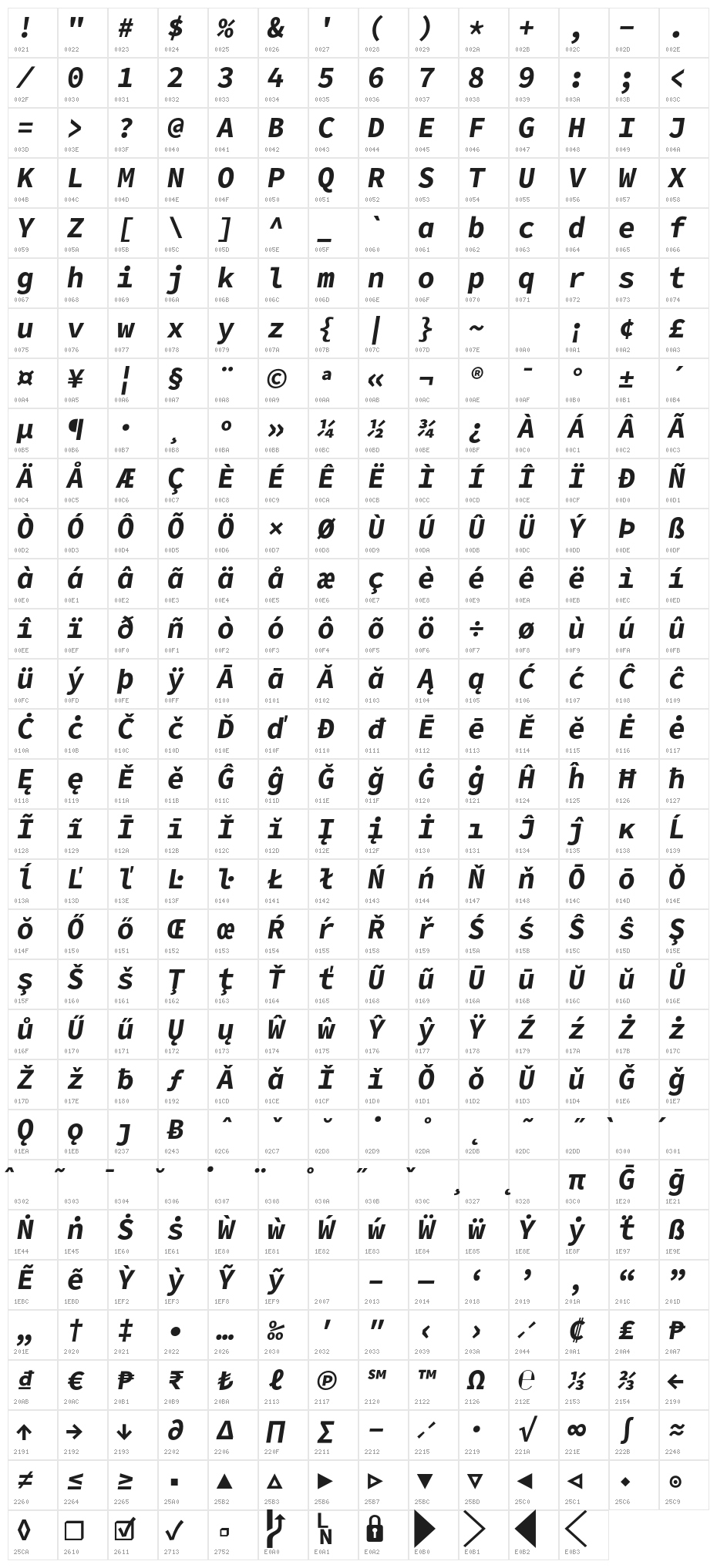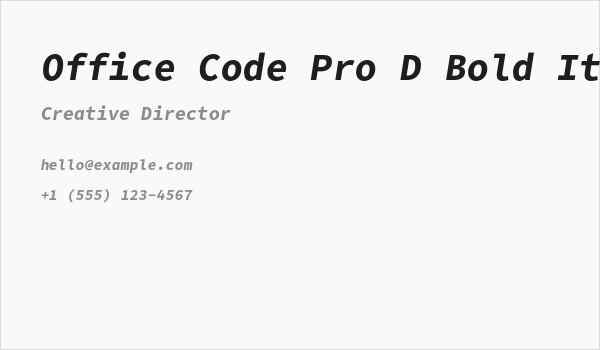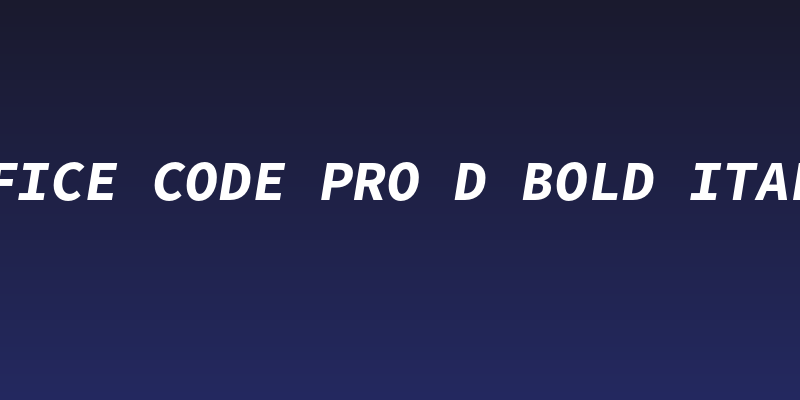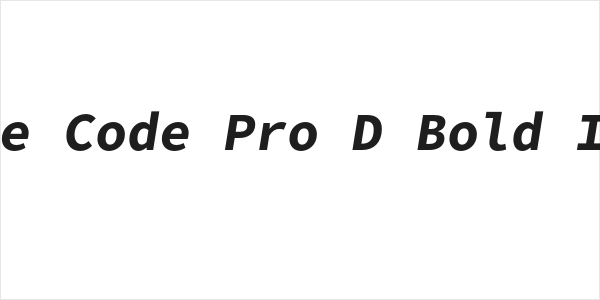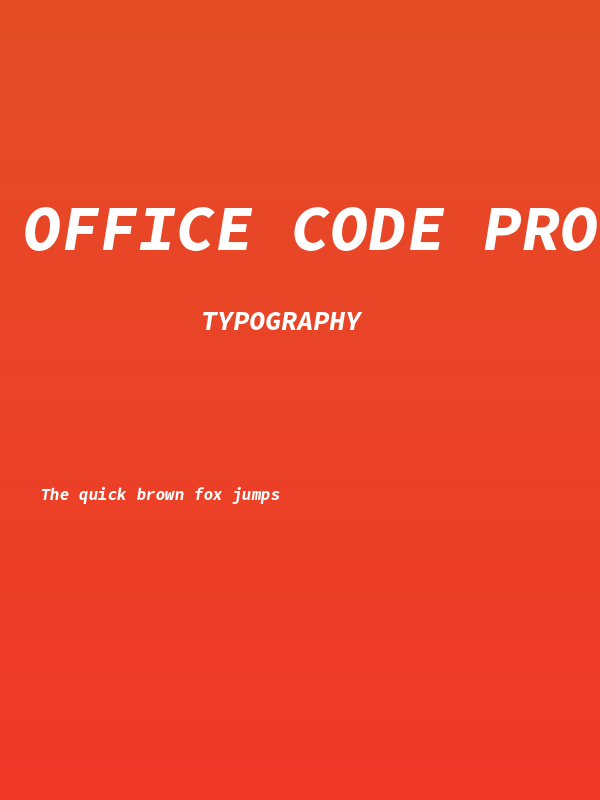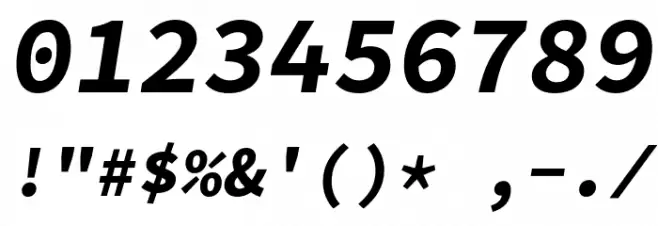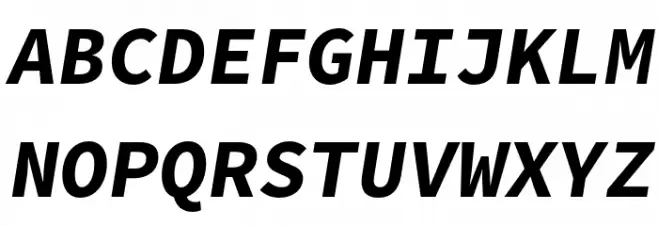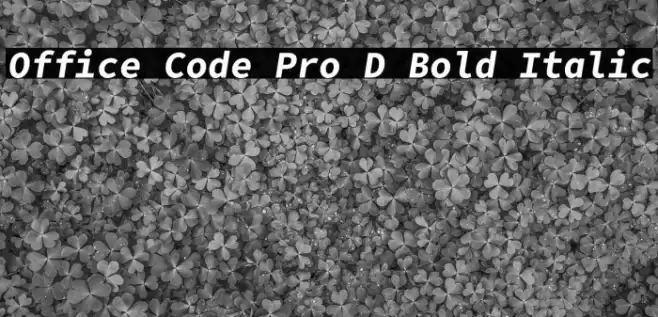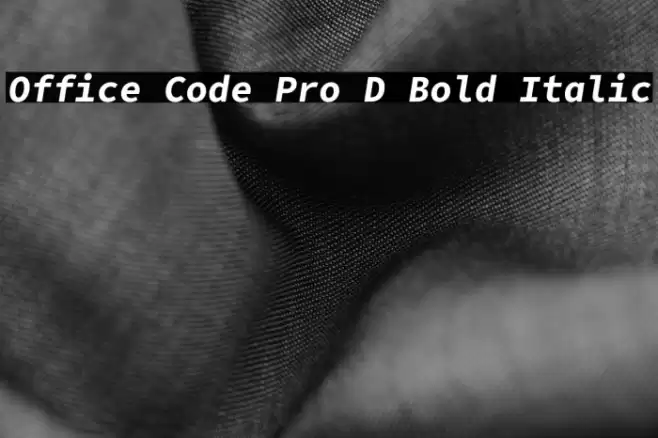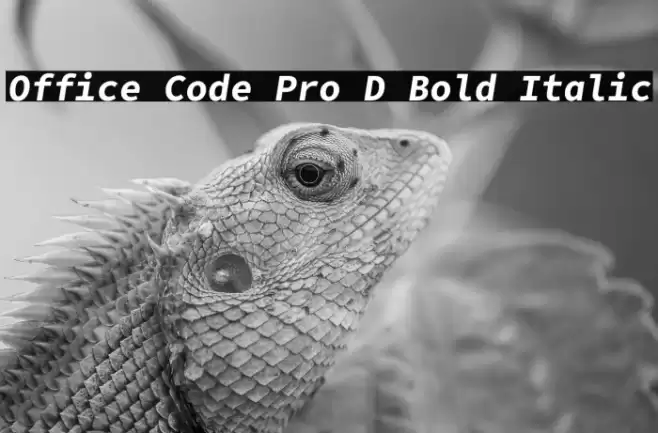
Office Code Pro D Bold Italic Font
Office Code Pro D Bold Italic Description
This font exhibits a bold and italicized style, characterized by its strong, assertive strokes and slightly slanted characters. The uppercase letters are robust and commanding, while the lowercase letters maintain a consistent flow with a slight inclination, enhancing readability. The numerals are clear and well-defined, making them suitable for various applications. Special characters are distinct and maintain the overall bold aesthetic. The font's design is modern, with a touch of elegance due to its italic nature, making it versatile for both digital and print media.
| Use Case | Headlines, Code, Technical documents |
| Proposed Projects | Ideal for coding environments, technical documentation, modern branding, and digital interfaces. |